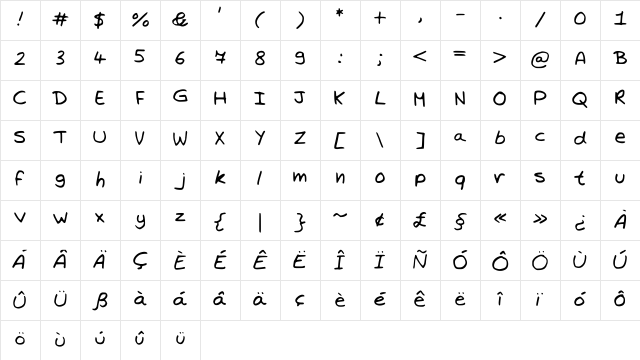
TrystansWritingCorrected Medium Free Font
TrystansWritingCorrected Medium
Complete TrystansWritingCorrected Medium glyph index. Displaying only characters natively supported by TrystansWritingCorrected Medium font.
Design Context for TrystansWritingCorrected
TrystansWritingCorrected is a composed and adaptable typeface that performs quietly and consistently across a wide range of design contexts.
Pro Tip: Use TrystansWritingCorrected in both headline and body roles to test its range before committing to a single application.